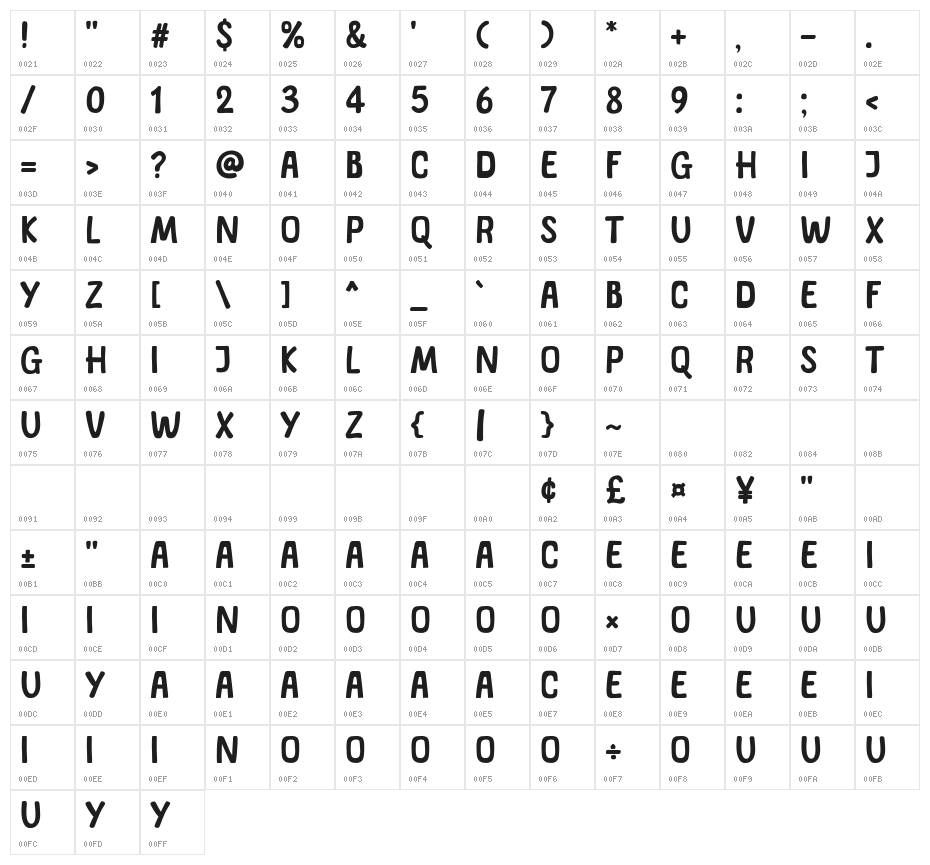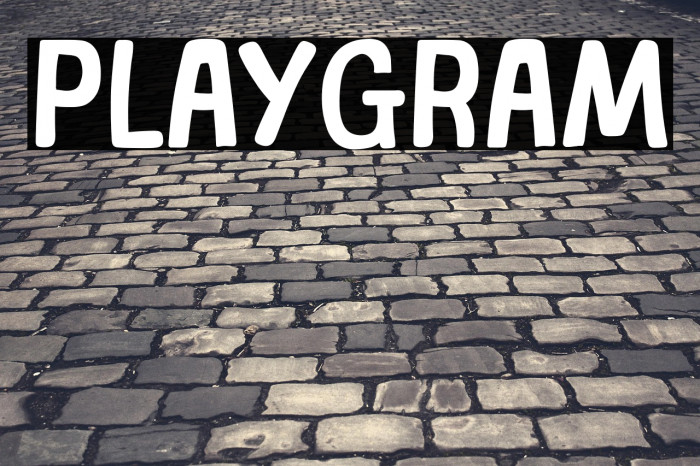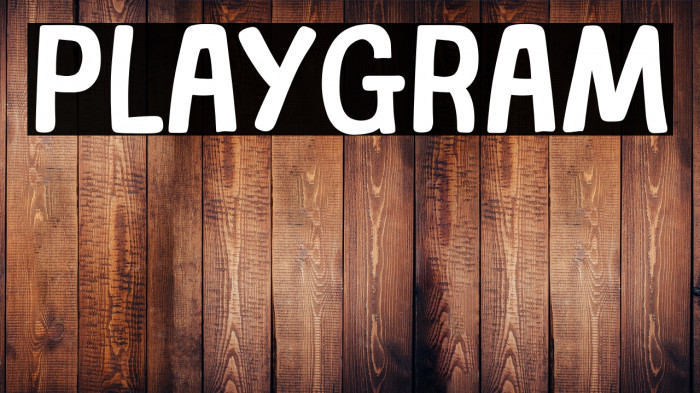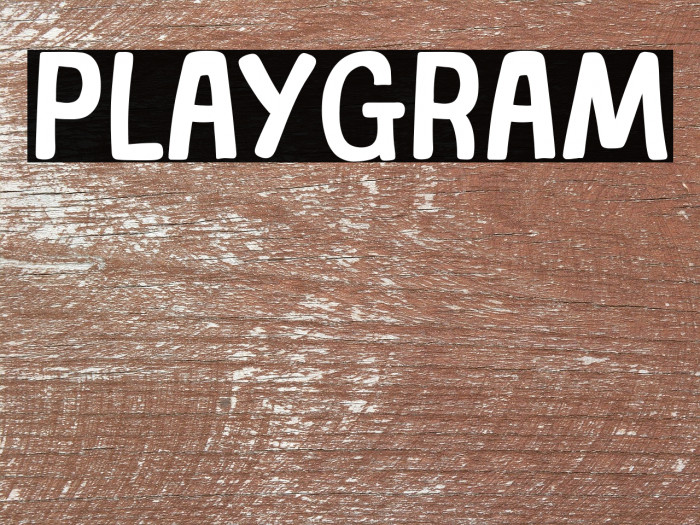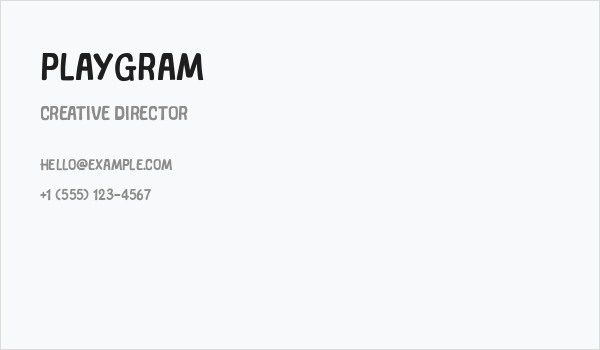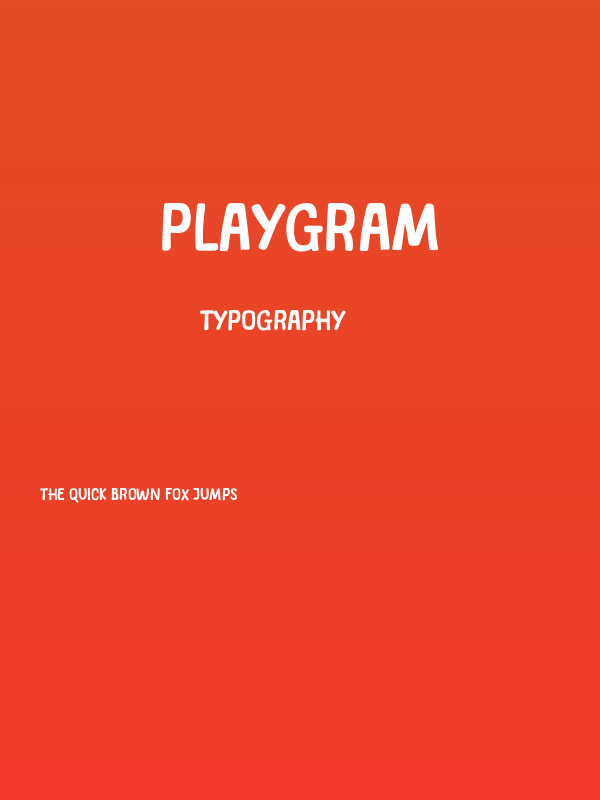
Playgram Font
Playgram Description
This font features a playful and rounded style, characterized by its bold and slightly irregular letterforms. The uppercase and lowercase letters maintain a consistent width, giving it a cohesive appearance. The numbers and special characters follow the same playful aesthetic, making it suitable for informal and creative projects. The strokes are thick and uniform, providing a strong visual presence. The overall design is approachable and friendly, ideal for capturing attention in a fun and engaging way.
| Overall Style | Playful |
| Proposed Projects | Ideal for children's books, playful branding, posters, and social media graphics. |